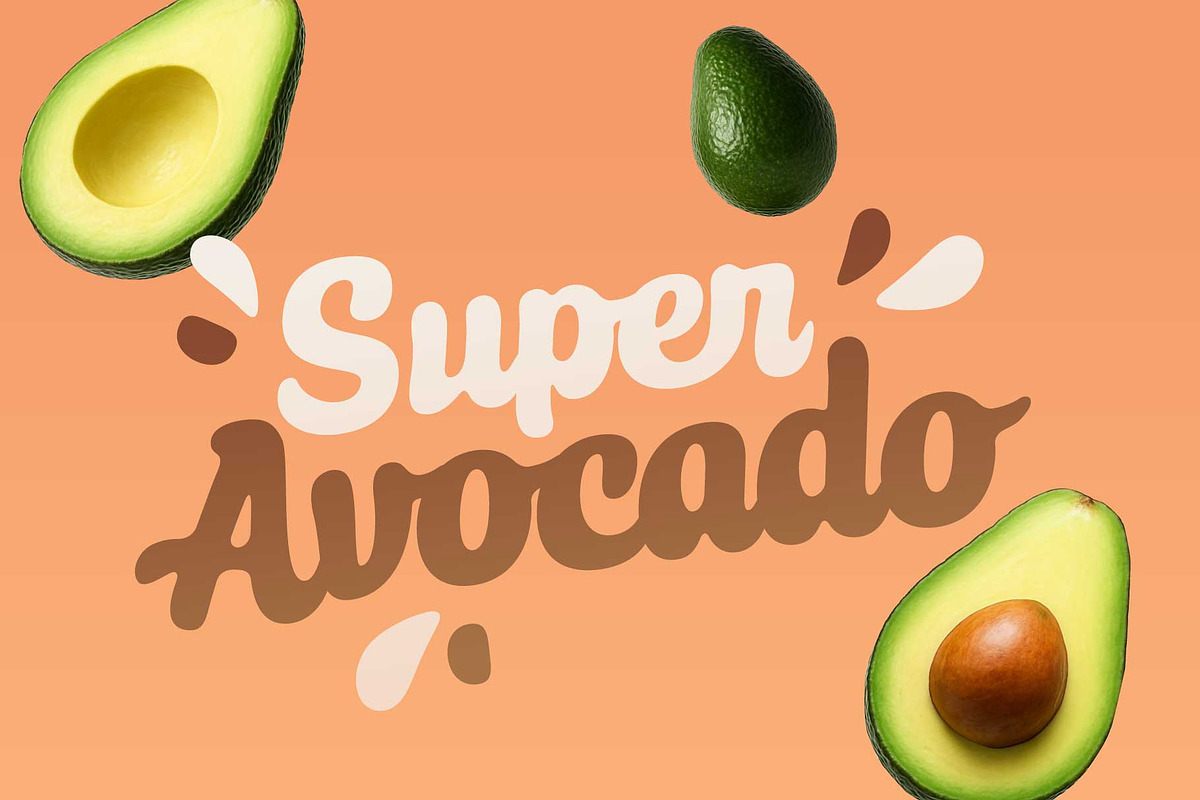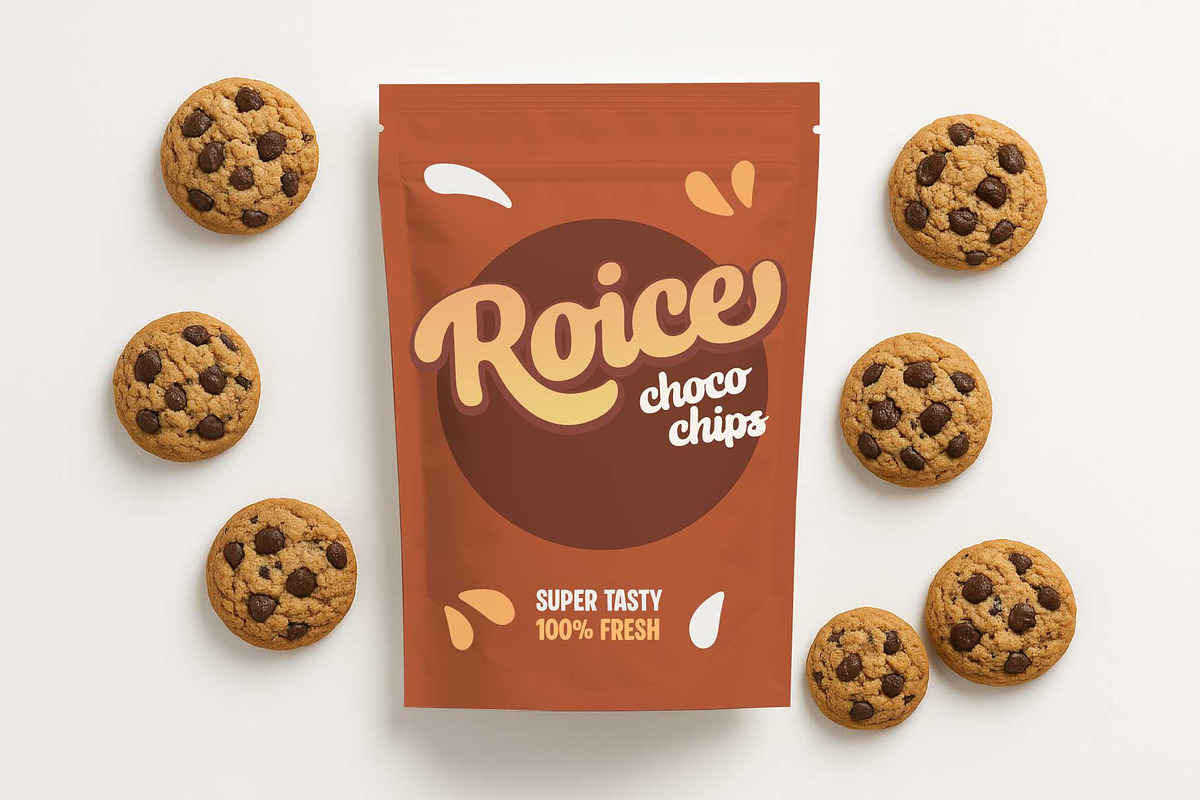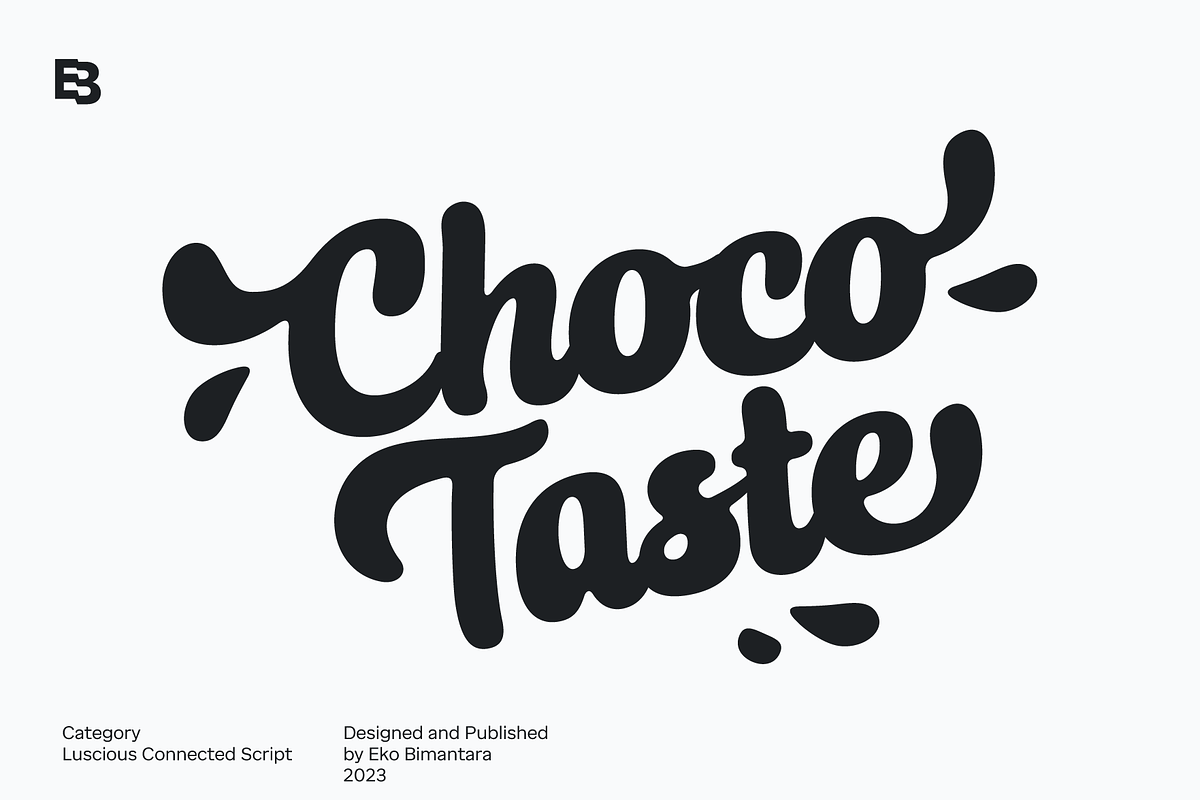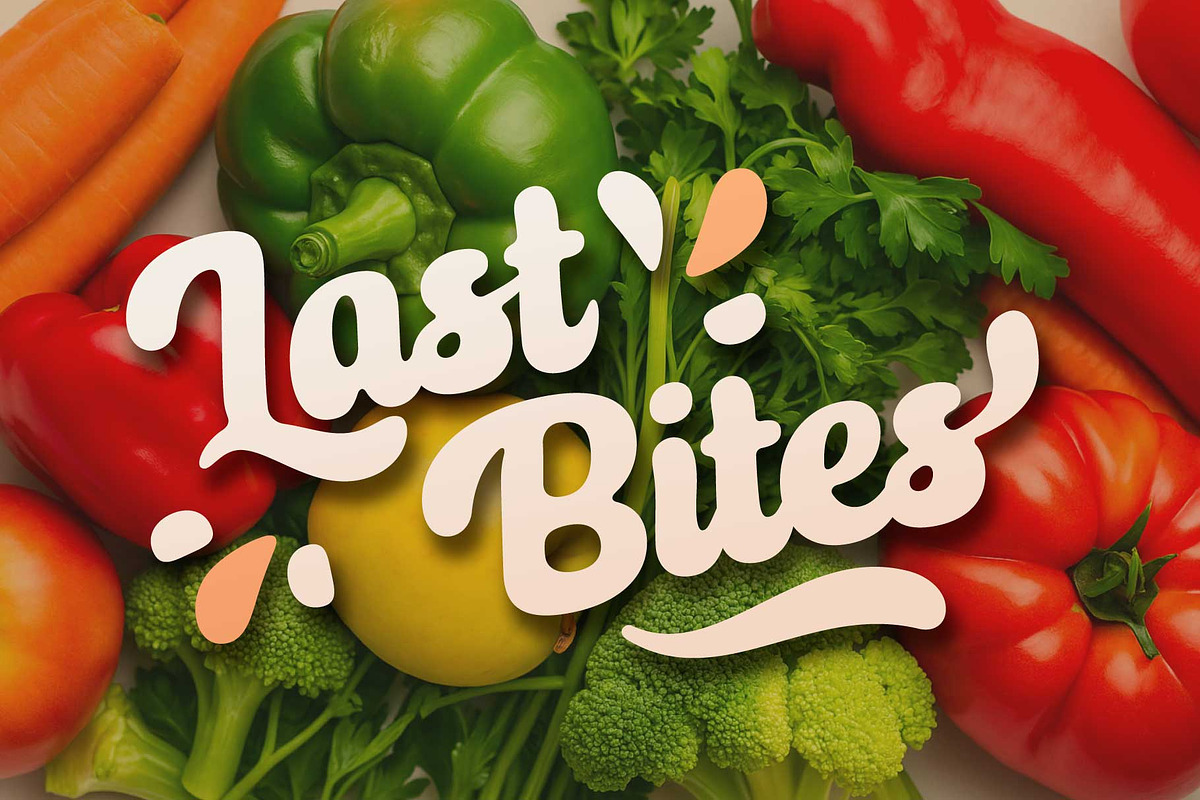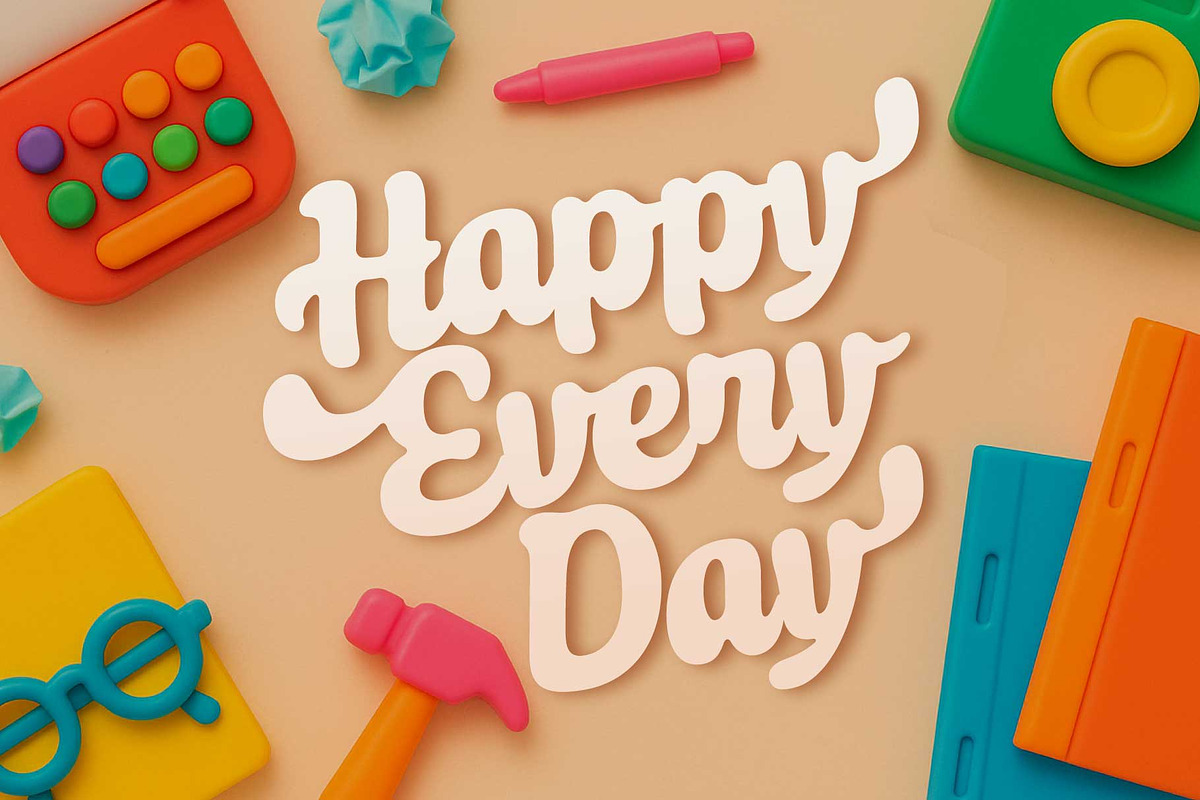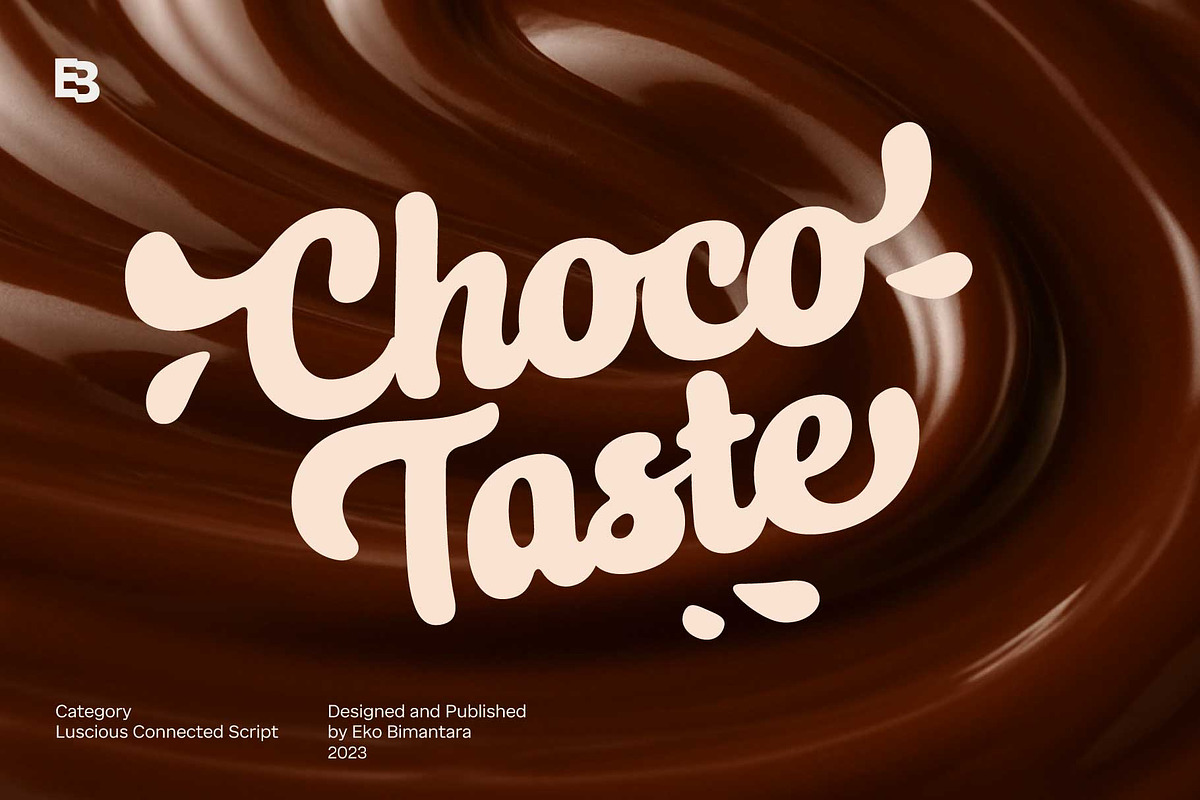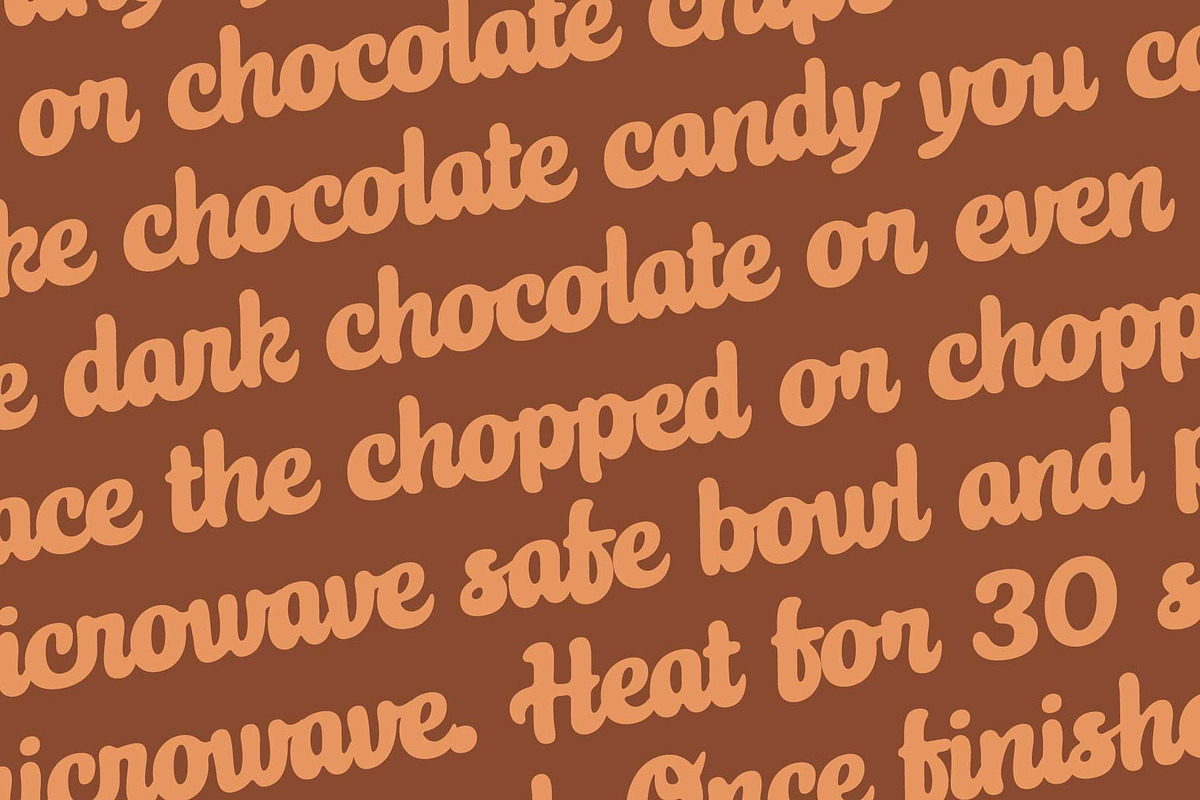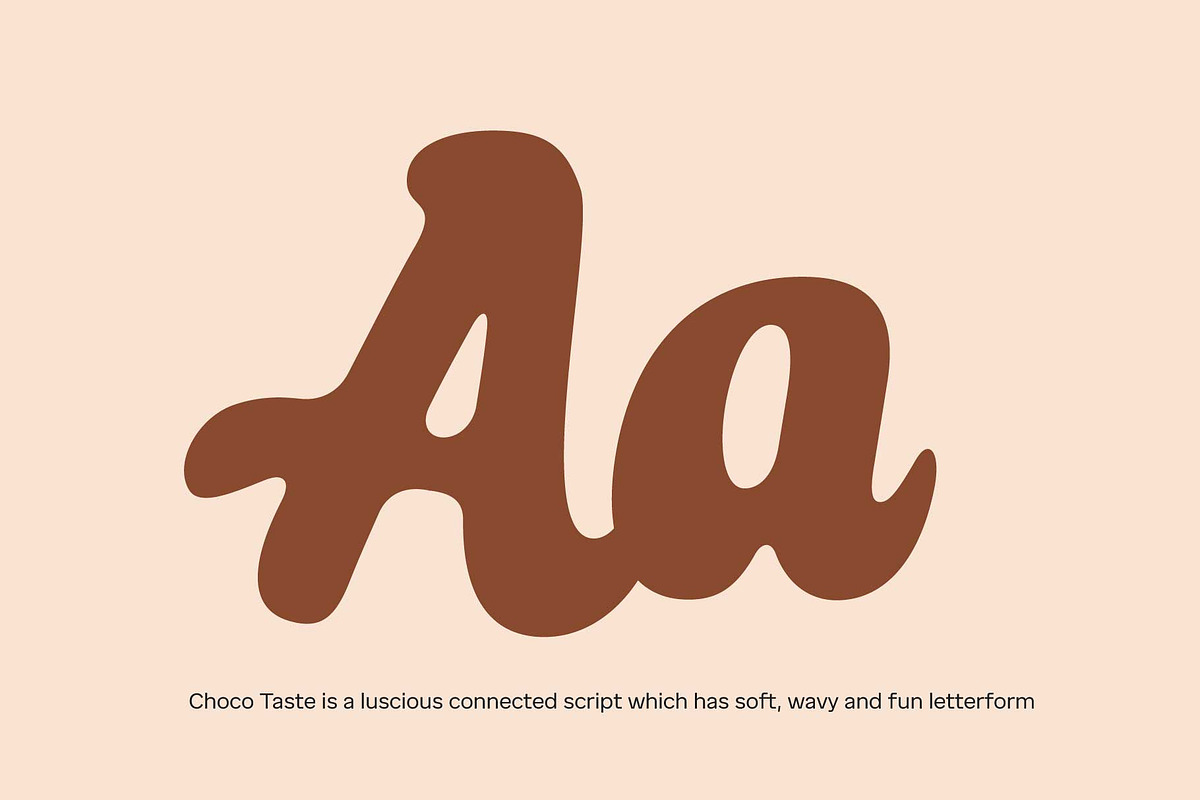
Choco Taste; Luscious Script Font
Choco Taste is a luscious and soft connected script font that exudes a fun and friendly vibe. Its characteristic qualities include a sense of lusciousness, softness, and liquid-like flow, making it a perfect choice for various design purposes. This font is well-suited for display, large size, headers, and versatile layout designs, making it ideal for logos, websites, brand identities, product packaging, and a wide range of graphic design and creative projects, especially for food products. Whether you’re creating a bold display or adding a touch of luscious fun to your design, Choco Taste is a versatile and inviting choice that can make a visual impact.